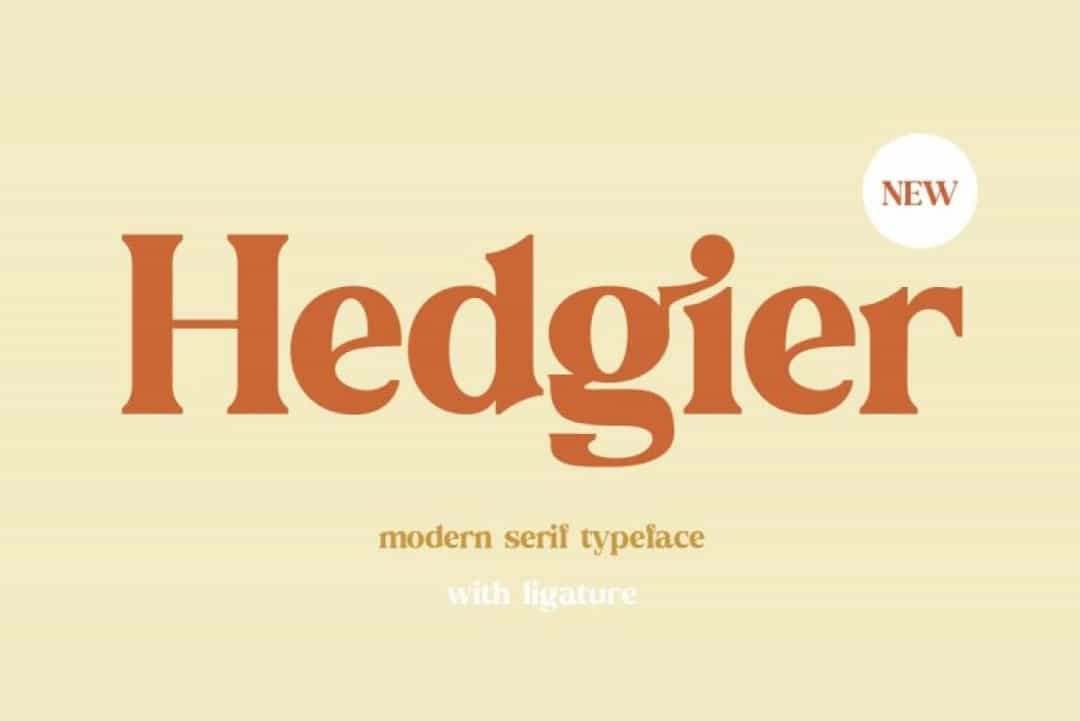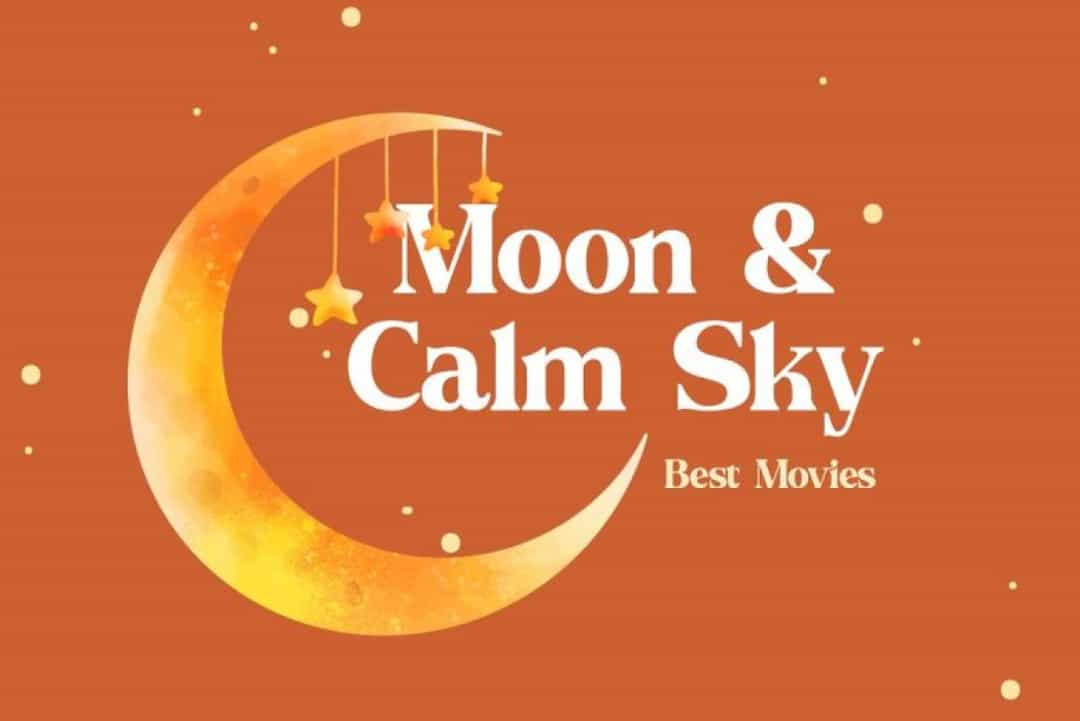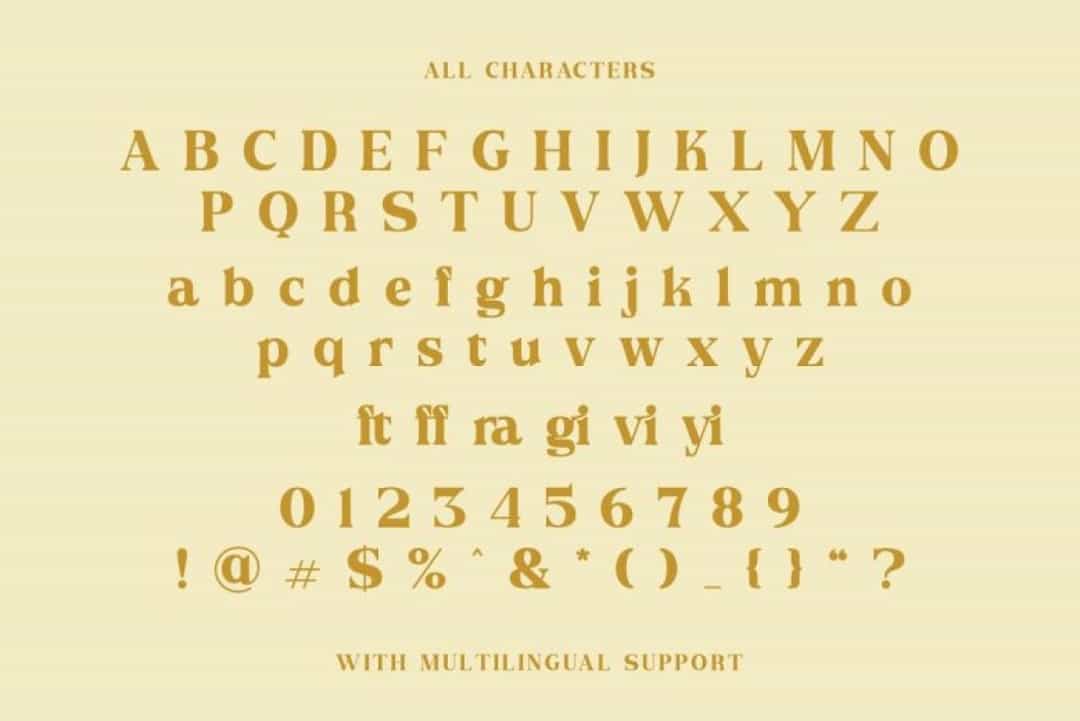
Hedgier font is a contemporary bold serif typeface commonly referred to as weiss Roman. The combination of letter widths gives this elegant font its name; perfect for logos, branding photographs, wedding announcements, invitations, blog headers, posters advertisements cards books websites etc.